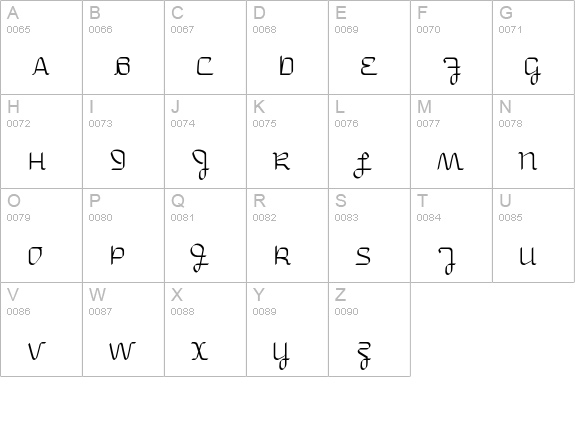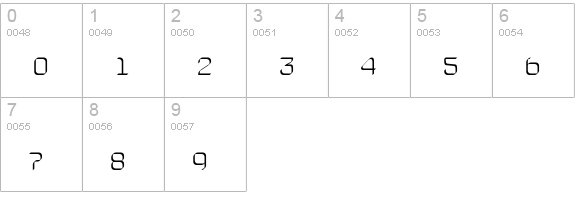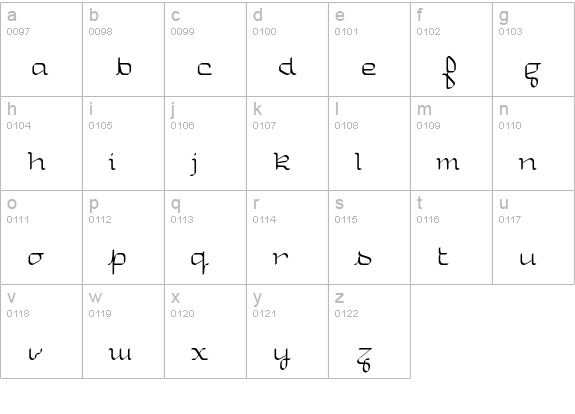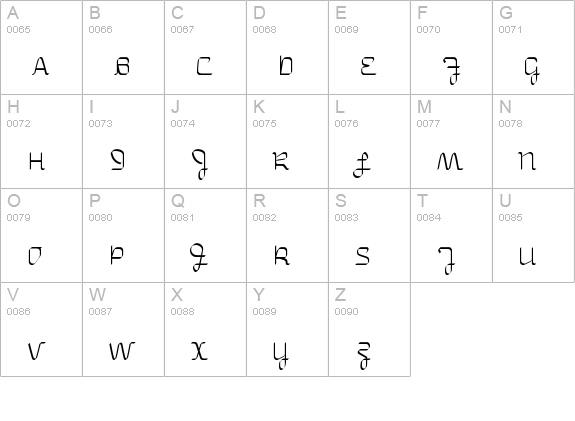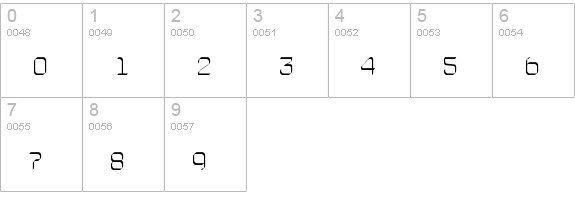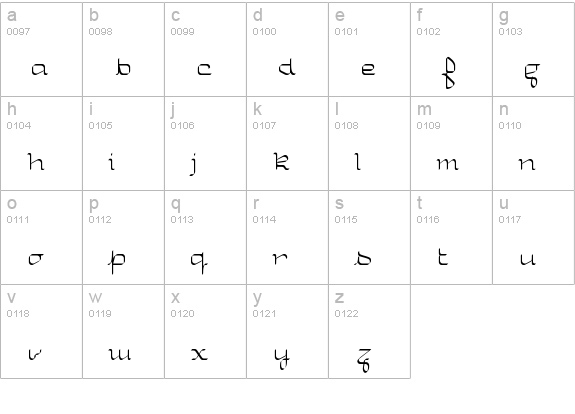
Uniglow-Fifty Font Details
Introducing Uniglow-Fifty, a captivating and versatile font that will elevate your designs to new heights. This free font boasts a unique blend of modernity and elegance, making it the perfect choice for a wide range of projects. With its sleek lines and eye-catching curves, Uniglow-Fifty effortlessly catches the viewer's attention, leaving a lasting impression. Crafted with meticulous attention to detail, Uniglow-Fifty exudes a sense of sophistication and professionalism, making it ideal for branding, logo design, editorial work, and more. Its clean and crisp letterforms make it highly legible, ensuring that your message is conveyed with clarity and impact. But what truly sets Uniglow-Fifty apart is its versatility. Whether you're aiming for a minimalist and contemporary look or a bold and daring statement, this font has you covered. Its wide range of weights and styles allows you to experiment and create visually stunning compositions that will captivate your audience. And the best part? Uniglow-Fifty is freely available to download at FontsMarket.com. Now you can effortlessly add this remarkable font to your collection without breaking the bank. So why wait? Unleash your creativity and explore the endless possibilities that Uniglow-Fifty has to offer. Elevate your designs to the next level with this exceptional font today.